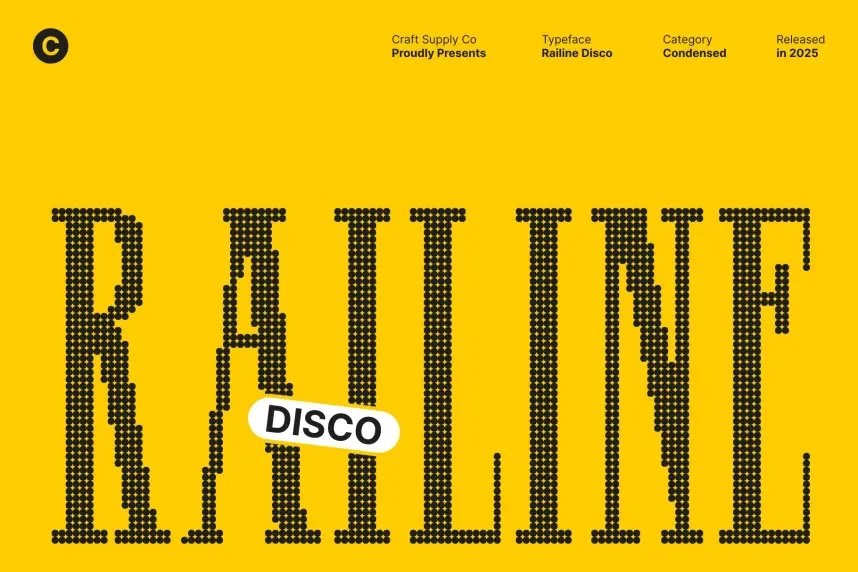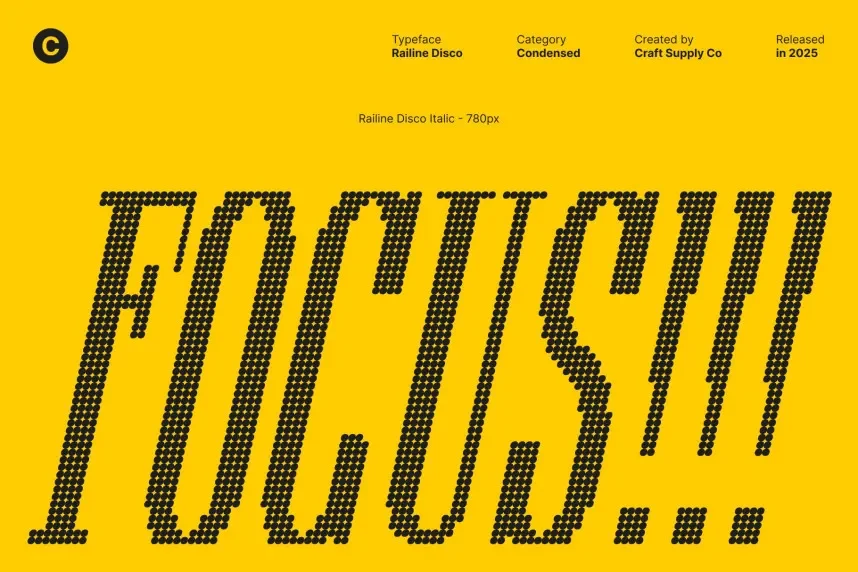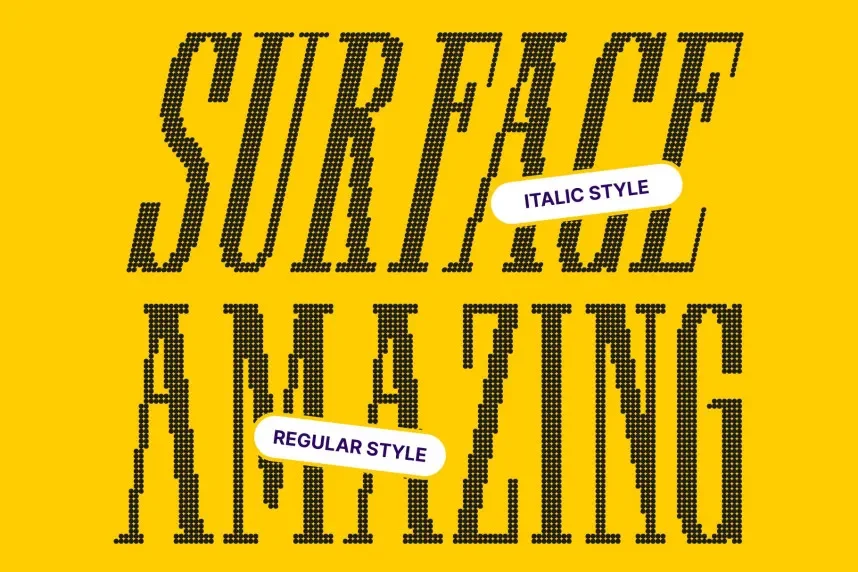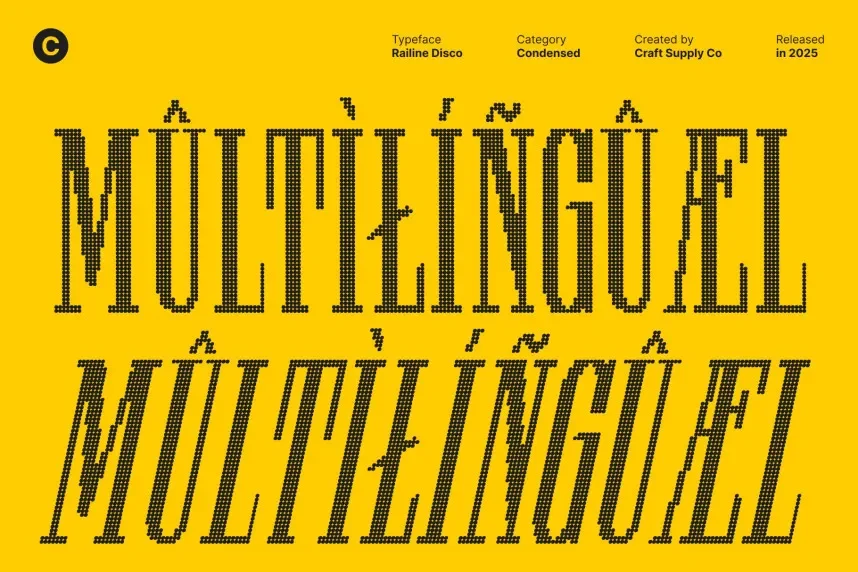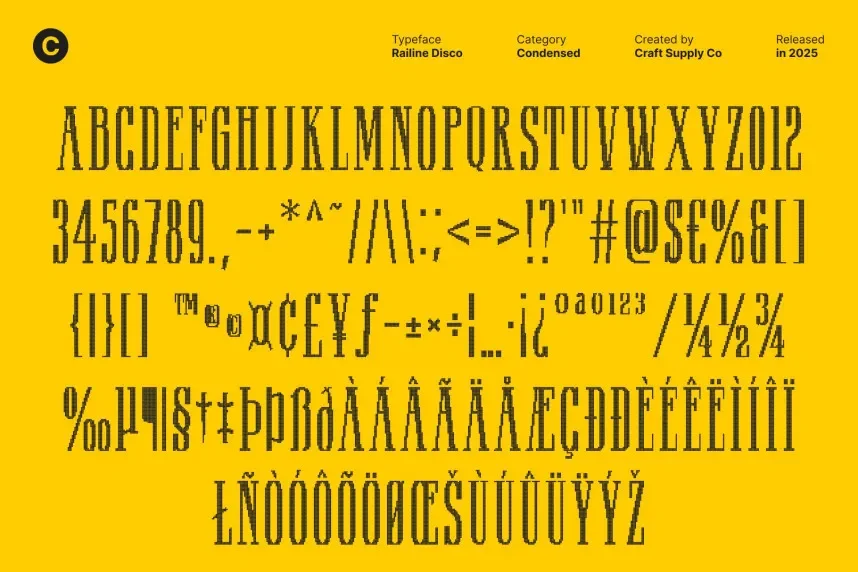
Railine Disco Font addresses event and entertainment design needs where standard fonts feel flat. Disco styles often require bold shapes with rhythm.
Railine Disco is a display font with rounded forms, thick strokes, and dynamic spacing. The letterforms are optimized for short text and high visual impact.